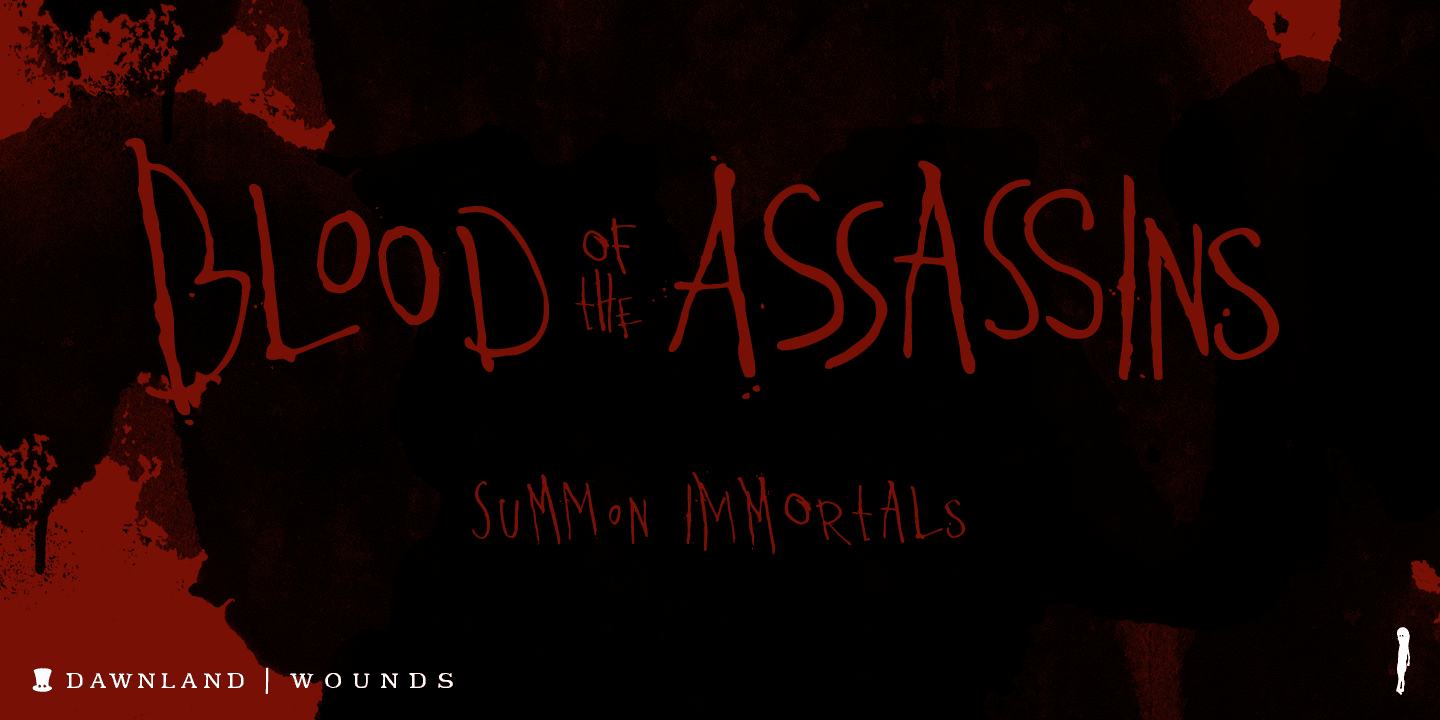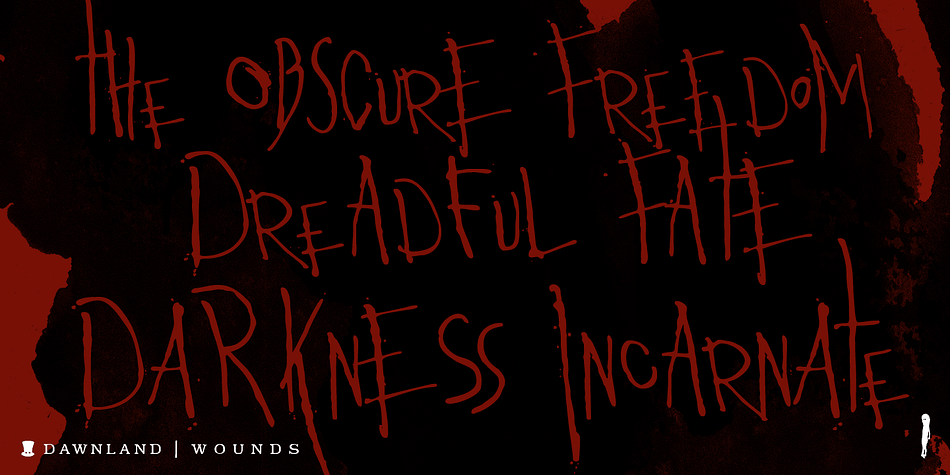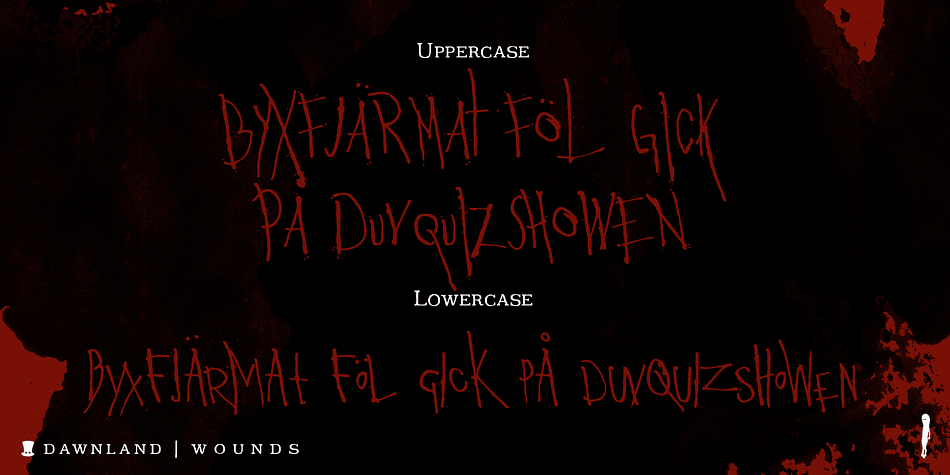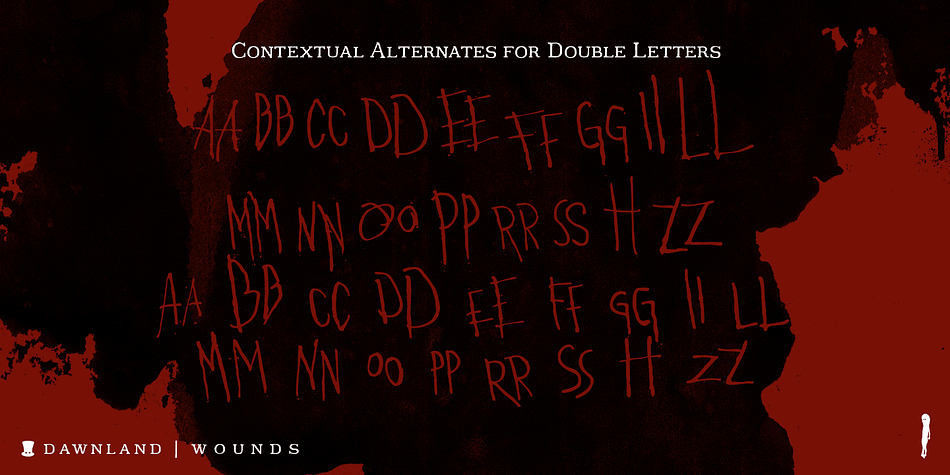
Designed by Daniel Viberg, Wounds is a grunge and novelty font published by Dawnland.
Horror/Metal/Punk upper case only font with varied double letters (open type feature).
Open type Latin Pro with alternate upper case using the lower case, and varied double letters for an even more genuine handwritten look. (Open type feature.)
Ink on paper, carefully and meticulously touched up digitally so that all letters will look good printed in bigger sizes.